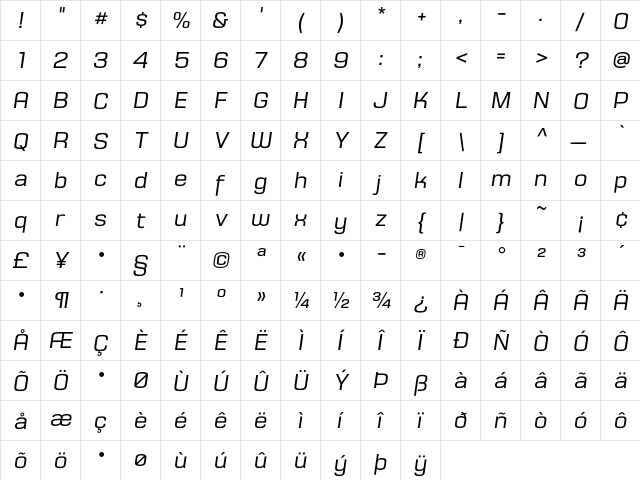
HouseGothicHG23Text Italic Font Preview
HouseGothicHG23Text Italic
HouseGothicHG23Text Italic Font Details
| Designer | Allen Mercer/Tal Leming |
Design Context for HouseGothicHG23Text Typeface
HouseGothicHG23Text has the quiet confidence of well-executed sans-serif typography: versatile, unobtrusive, and dependable at any size. Its italic angle brings a sense of urgency and motion to the letterforms.